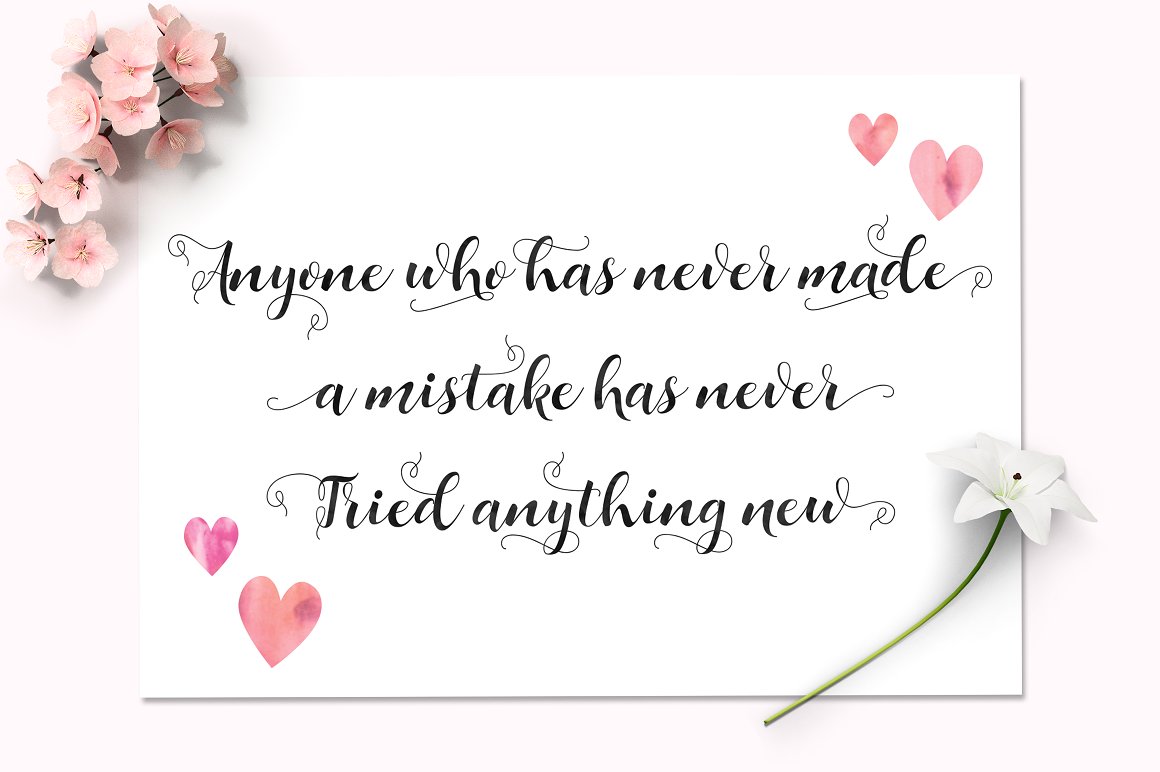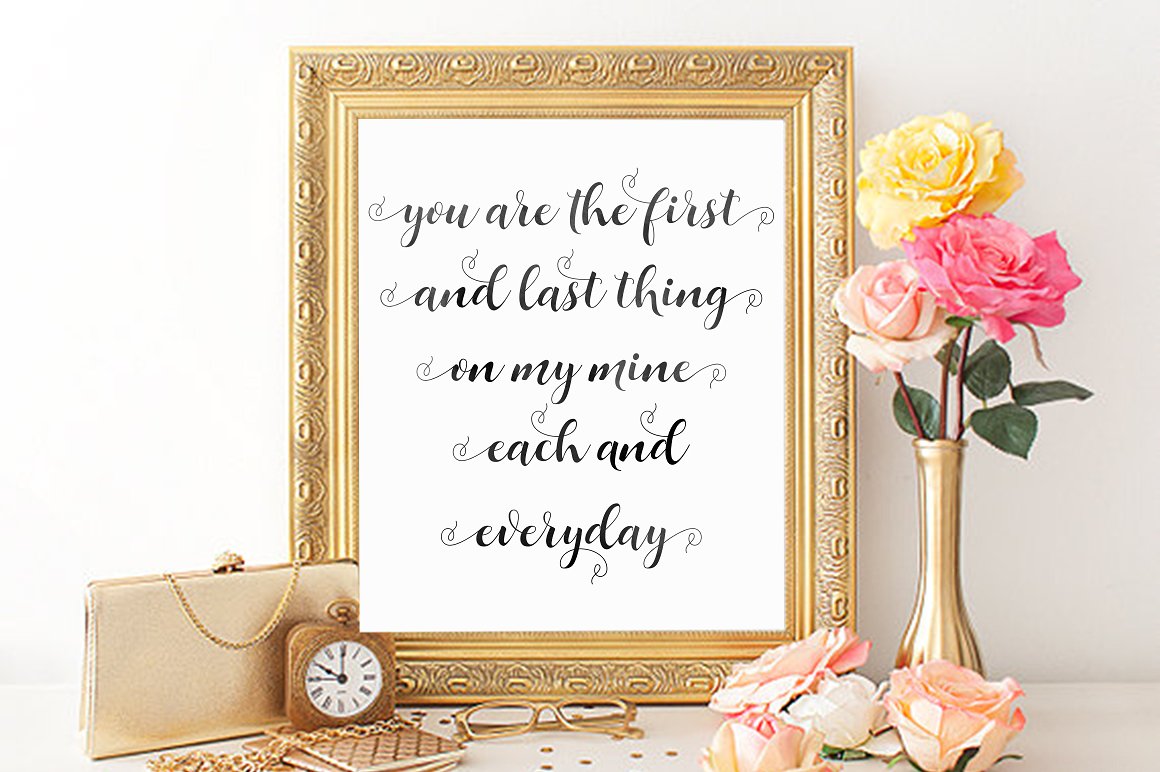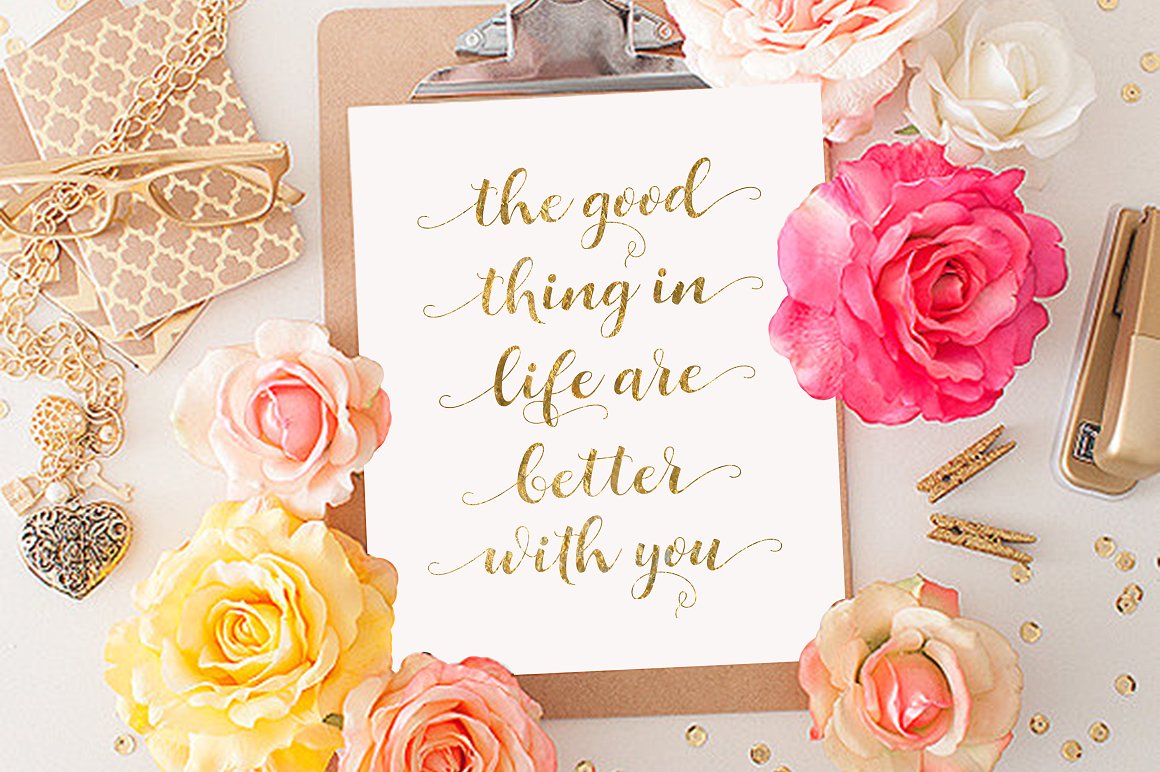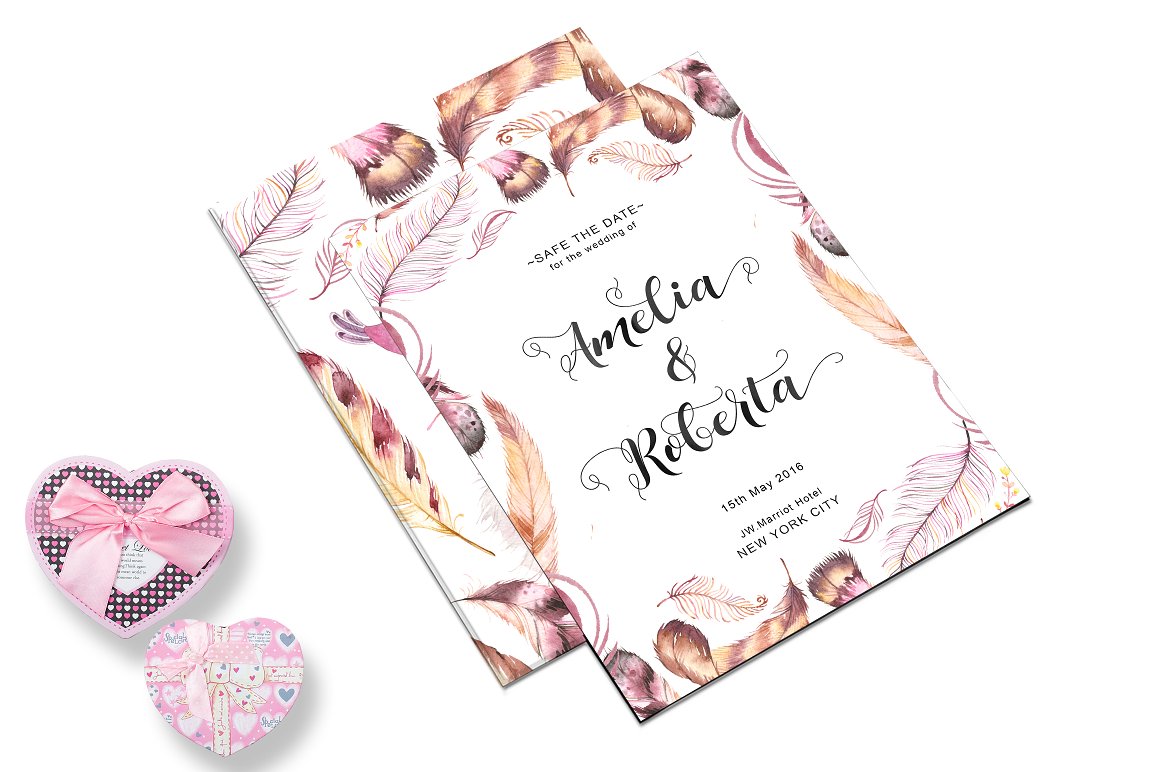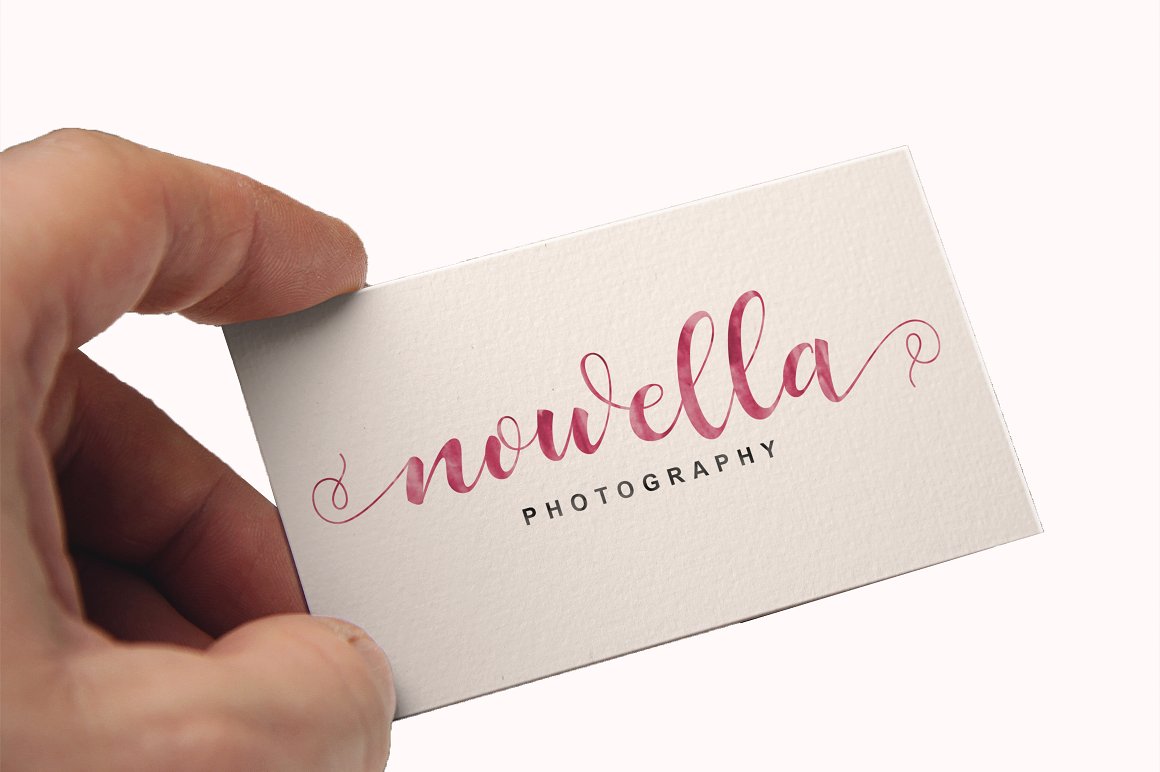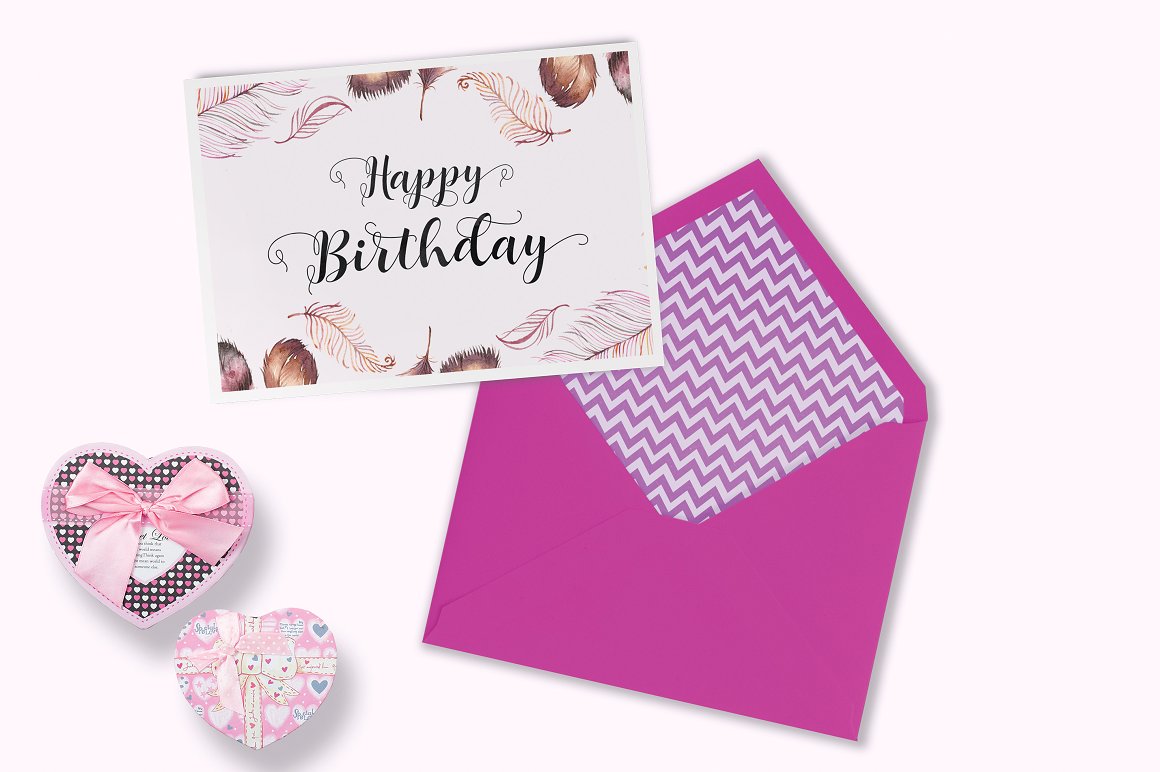
The Ultimate Guide to Boulevard Script Font: Elevate Your Designs with Elegance
I’ll never forget the time I was working on a wedding invitation project, and my client asked for a font that was both elegant and playful. I scoured the internet, trying out font after font, but nothing seemed quite right. That was until I stumbled upon Boulevard Script. With its fresh, modern calligraphic style, it was love at first sight! In this article, I’ll share my experience with Boulevard Script, its features, and how to make the most of this beautiful font.
What Makes Boulevard Script Special?
Boulevard Script is a handmade calligraphic script font that boasts a modern and fresh feel. Its decorative characters and numerous alternates make it perfect for creating stunning invites, cards, and even decorative business materials. With 450 unique glyphs at your disposal, the creative possibilities are endless!
So, what do I love about Boulevard Script? Here are a few highlights:
• ✨ Unique and elegant: Boulevard Script has a distinct, handcrafted feel that sets it apart from other script fonts.
• ✅ Highly versatile: With its wide range of glyphs and alternates, you can use it for various design projects, from wedding invites to business branding.
• 💫 Easy to read: Despite its decorative nature, Boulevard Script remains surprisingly legible, making it perfect for both headings and body text.
Of course, no font is perfect, and Boulevard Script has a few minor quirks:
• 🤔 Occasional kerning issues: As with many script fonts, you might encounter some kerning issues, especially when using certain character combinations.
• ⚠️ Not ideal for body text: While it’s legible, Boulevard Script is best used for headings and titles. For longer blocks of text, a more traditional font might be more suitable.
The Story Behind Boulevard Script
Boulevard Script was designed with the intention of creating a modern, elegant script font that captures the essence of handmade calligraphy. The designer aimed to create a font that would be both versatile and beautiful, suitable for a wide range of creative projects.
What type of projects is Boulevard Script best suited for? Boulevard Script is perfect for creating invites, cards, and decorative business materials. Its elegant and modern style makes it ideal for wedding invitations, branding, and editorial design.
How many glyphs does Boulevard Script have? Boulevard Script features 450 unique glyphs, offering a wide range of creative possibilities.